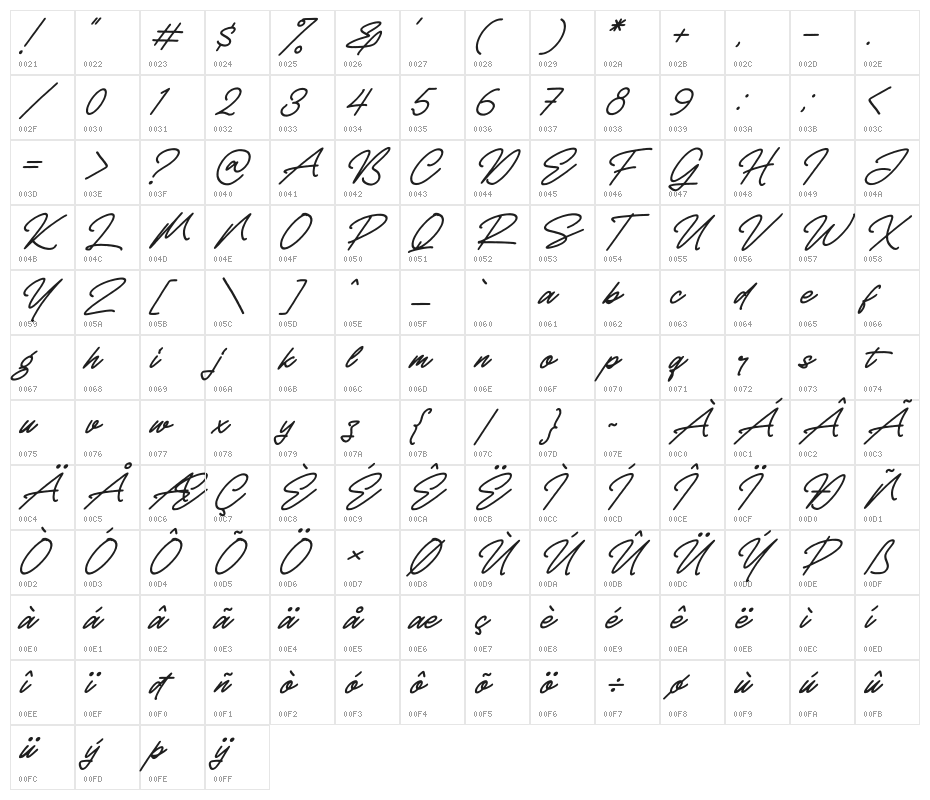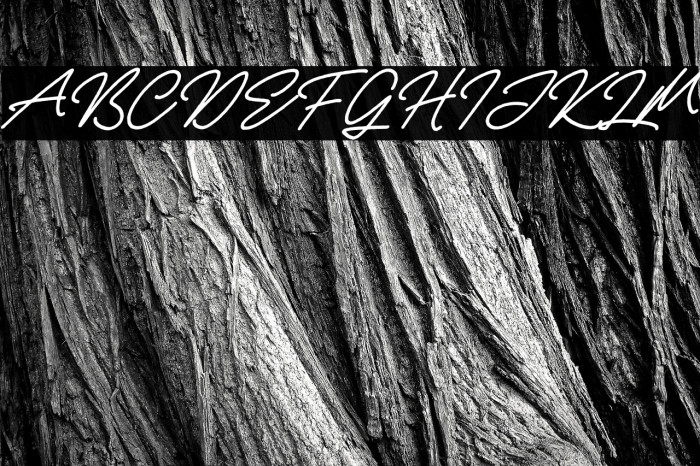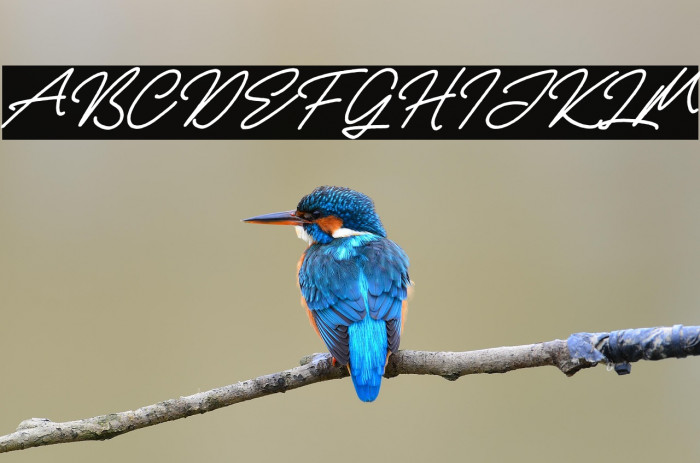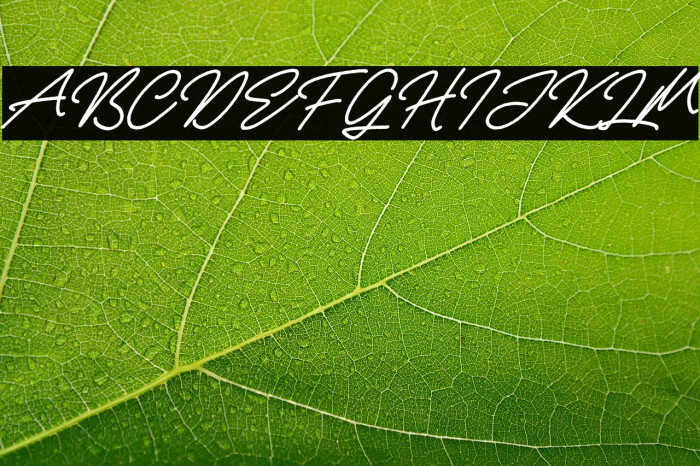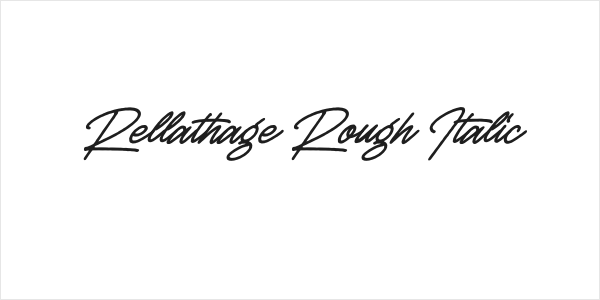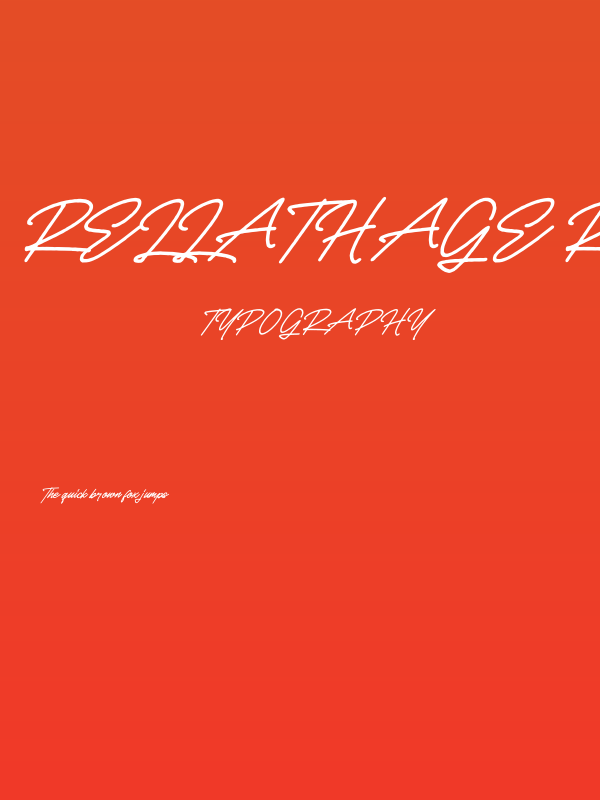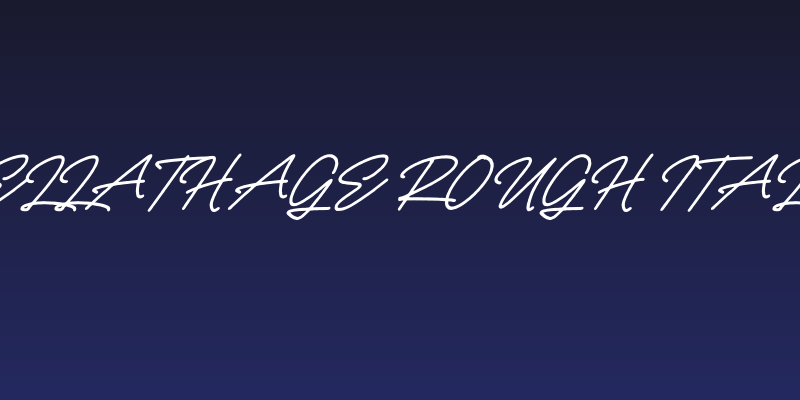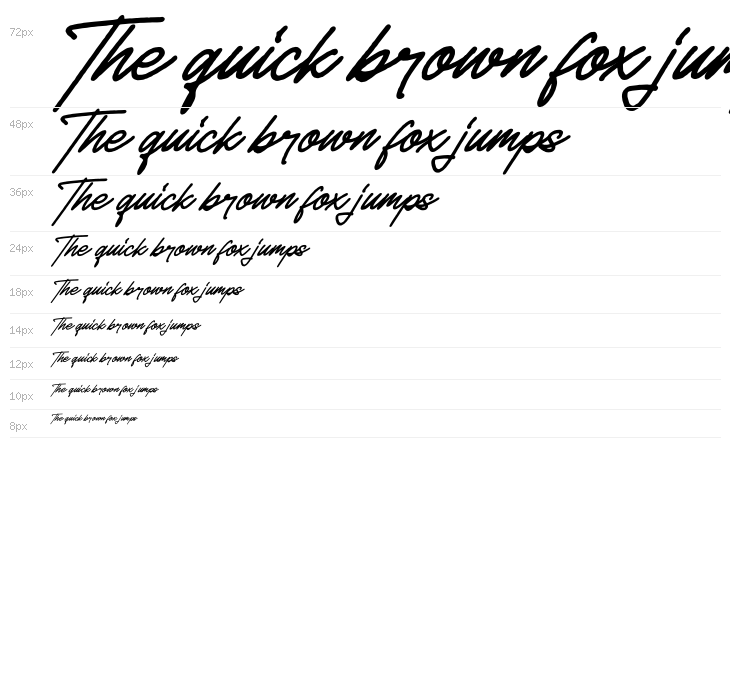
Rellathage Rough Italic Font
Rellathage Rough Italic Description
This font features a dynamic and expressive script style with a rough, hand-drawn appearance. The letters are connected in a fluid manner, giving it a natural and spontaneous look. The uppercase letters are elegant and slightly elongated, while the lowercase letters are more compact and rounded. The numbers maintain the same fluidity, ensuring consistency across all characters. Special characters are designed with the same rough texture, adding to the overall cohesive feel. This font's italic slant enhances its energetic and informal vibe, making it suitable for creative and artistic projects.